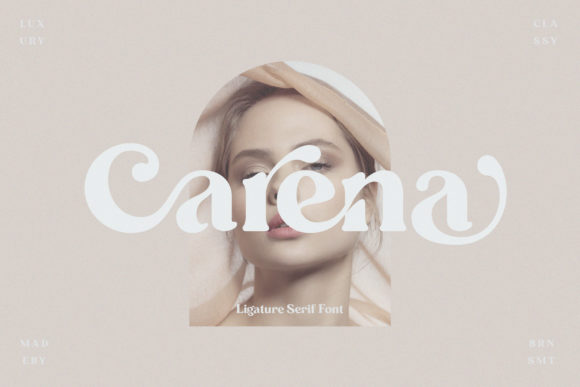
Introducing Carena Font: The Epitome of Class and Style
In the realm of typography, few fonts manage to convey the essence of elegance and sophistication as effectively as Carena Font. This classy and stylish serif font has been making waves in the design community, and for good reason. Its incredibly versatile style makes it an ideal choice for a wide range of applications, from wedding invitations and stationary art to social media posts and beyond.
The Birth of Carena Font
Carena Font is the brainchild of talented type designers who sought to create a font that would embody the perfect blend of classic and modern elements. The result is a serif font that exudes refinement and poise, making it an excellent addition to any design project that demands a touch of sophistication.
One of the defining features of Carena Font is its unique blend of traditional and contemporary elements. The font’s serif design pays homage to the classic typography of the past, while its clean lines and subtle curves bring it firmly into the modern era.
The Versatility of Carena Font
Carena Font’s versatility is one of its most compelling attributes. This font can be used in a multitude of contexts, from formal and informal, to digital and print. Here are just a few examples of how you can utilize Carena Font in your designs:
- Wedding Invitations: Create stunning wedding invitations that set the tone for a sophisticated and elegant celebration. Carena Font’s classic design ensures that your invitations will be cherished for years to come.
- Stationary Art: Elevate your stationary art with Carena Font’s refined style. From letterheads to greeting cards, this font adds a touch of luxury to any written communication.
- Social Media Posts: Make your social media posts stand out with Carena Font’s stylish and modern aesthetic. Whether you’re promoting a product or sharing a personal update, this font is sure to grab attention.
- Branding and Advertising: Use Carena Font to create a lasting impression with your brand’s identity. Its unique blend of classic and modern elements makes it an excellent choice for logos, taglines, and advertising campaigns.
Key Features of Carena Font
So, what sets Carena Font apart from other serif fonts on the market? Here are some of its key features:
- Classic Serif Design: Carena Font boasts a traditional serif design that exudes elegance and sophistication.
- Clean Lines and Subtle Curves: The font’s clean lines and subtle curves bring a touch of modernity to its classic design.
- Highly Legible: Carena Font is designed to be highly legible, making it perfect for both digital and print applications.
- Extensive Character Set: The font includes an extensive character set, ensuring that you have access to a wide range of characters and symbols.
In conclusion, Carena Font is a classy and stylish serif font that is sure to elevate your designs to new heights. Its incredibly versatile style makes it an excellent choice for a wide range of applications, from wedding invitations and stationary art to social media posts and branding. With its unique blend of classic and modern elements, Carena Font is the perfect addition to any design project that demands a touch of sophistication.